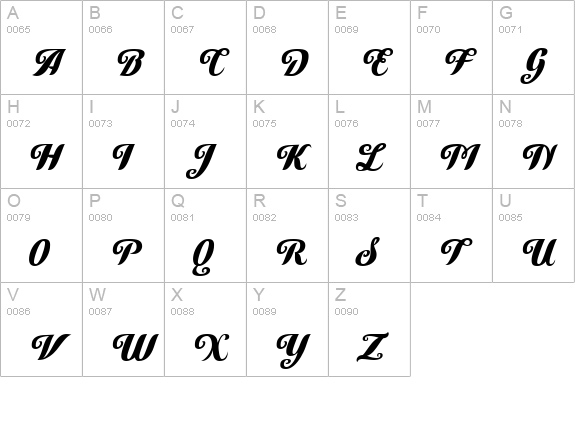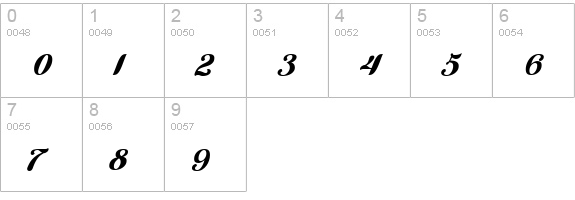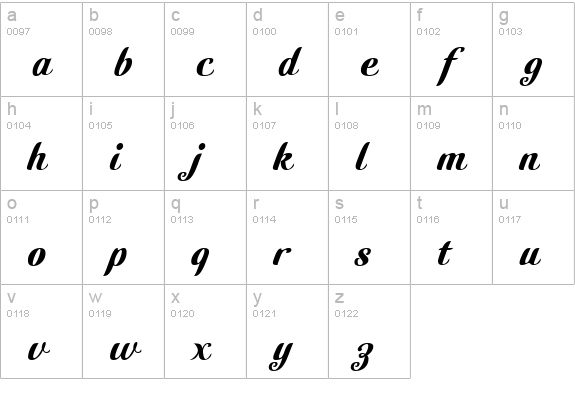
Cutiful Font Details
Cutiful font is a charming and whimsical typeface that exudes warmth and playfulness. Its unique design features soft curves and intricate details that give it a delightful and endearing appearance. Perfect for adding a touch of sweetness to any project, Cutiful font is ideal for invitations, greeting cards, and other creative designs. The best part? Cutiful font is completely free to download at FontsMarket.com. This means you can easily access this lovely font and use it in your projects without any cost. So go ahead and give your designs a cute and cheerful look with Cutiful font today!